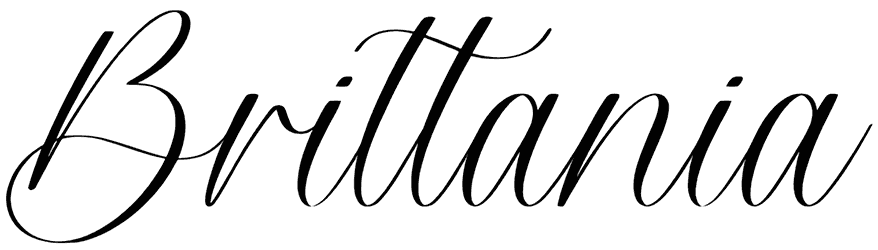
Brittania Font
If you feel the lack of a reliable source of inspiration for designing high-end graphic content such as logos, billboards, product packaging, or web page templates, a script font like Brittania can be an ideal solution. This calligraphy font can evoke a sense of drama, softness, and delicacy in the viewer’s mind.